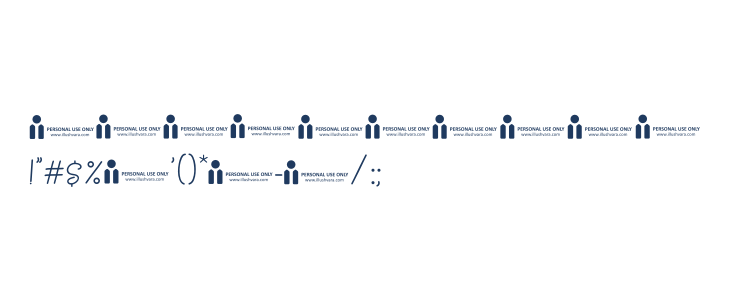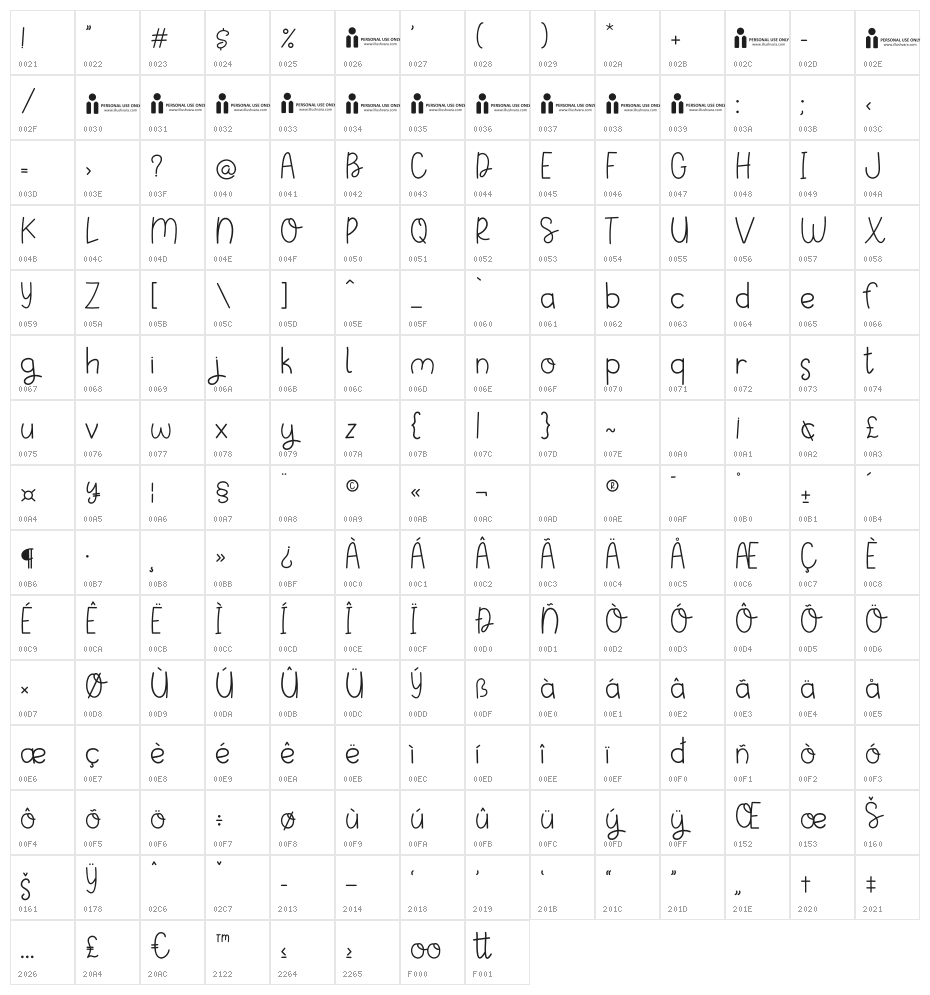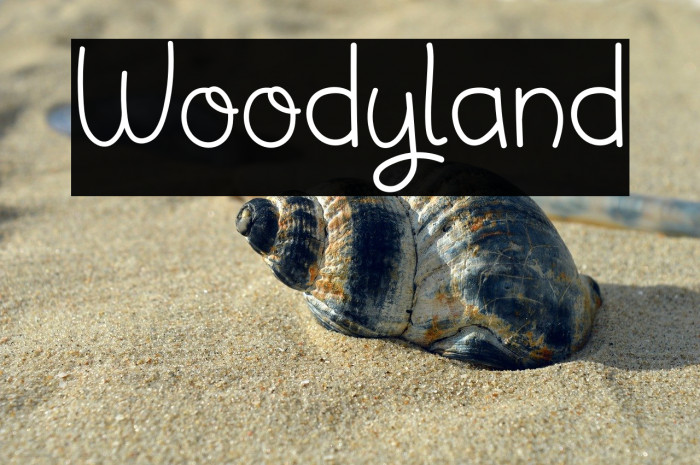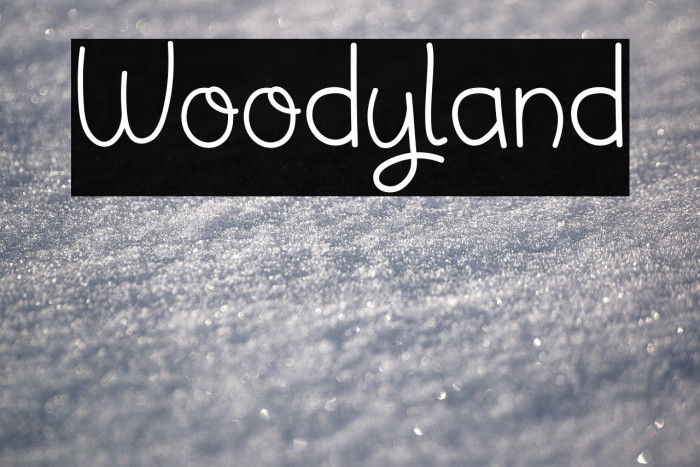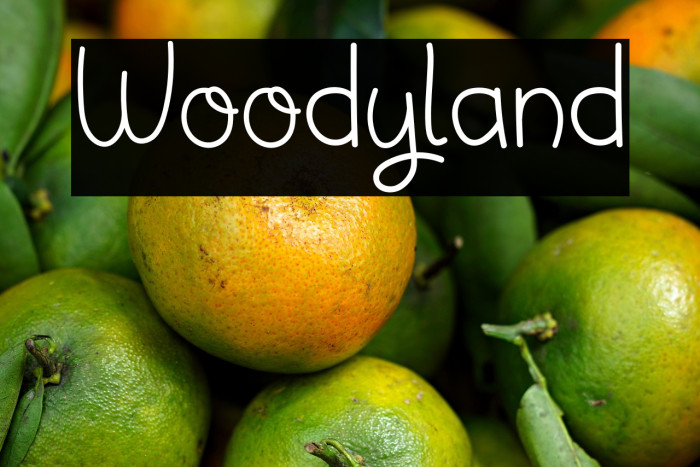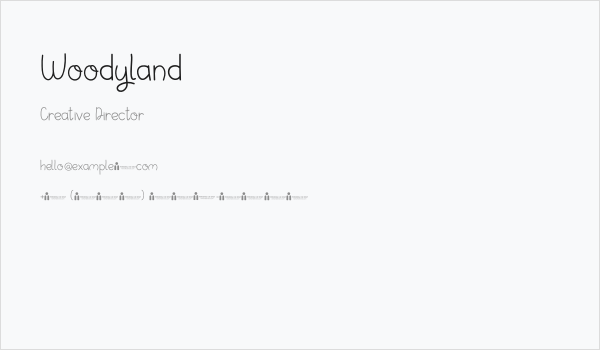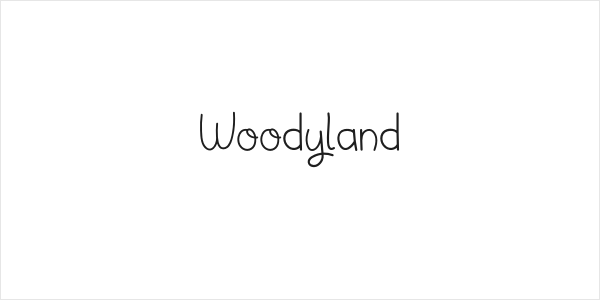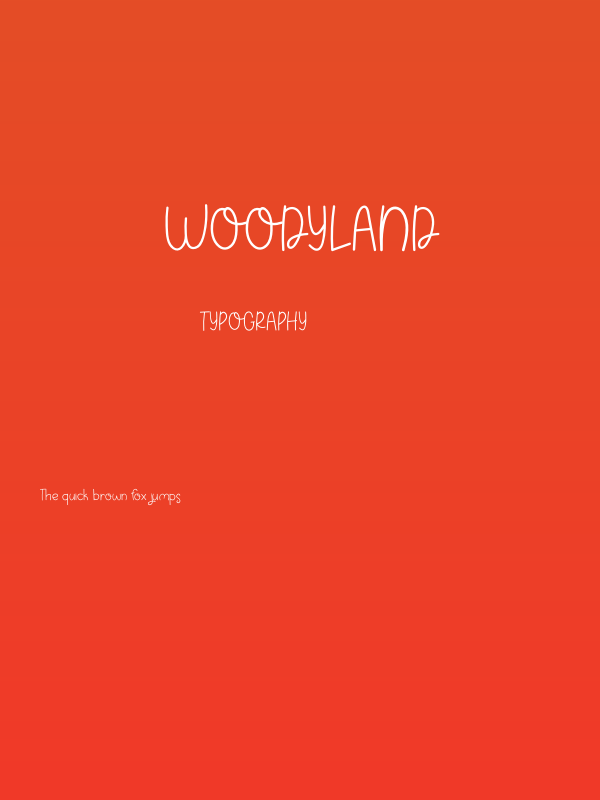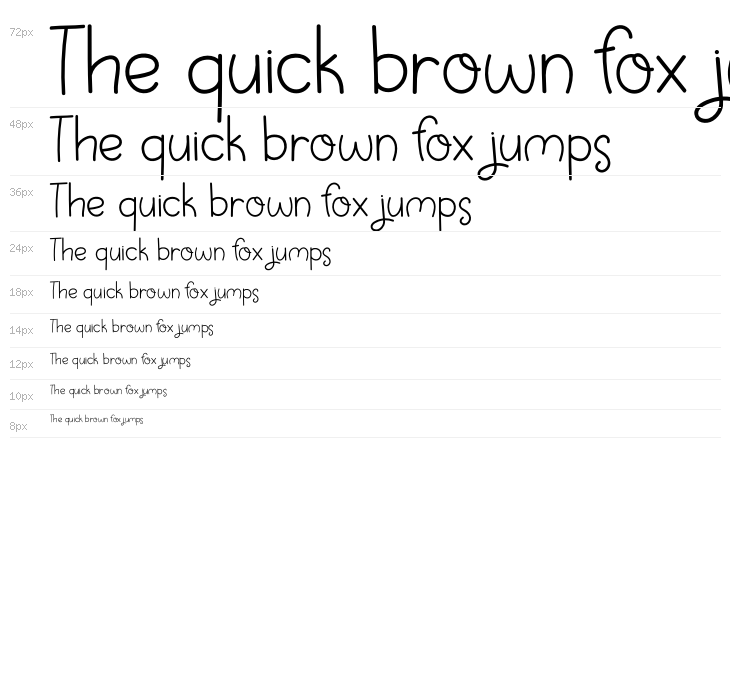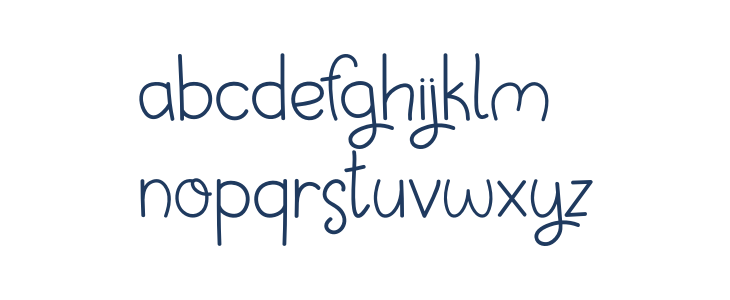
Woodyland Font
Woodyland Description
This playful and whimsical font features a handwritten style with a casual and friendly appearance. The letters are slightly elongated with a consistent stroke width, giving it a clean and approachable look. The rounded edges and smooth curves add to its charm, making it ideal for projects that require a personal touch. The font maintains a uniform baseline, ensuring readability while still conveying a sense of fun and creativity. Its unique character shapes, such as the looped 'g' and the distinctive 'y', add to its individuality.
| Proposed Projects | Ideal for children's books, greeting cards, playful branding, and informal invitations. |